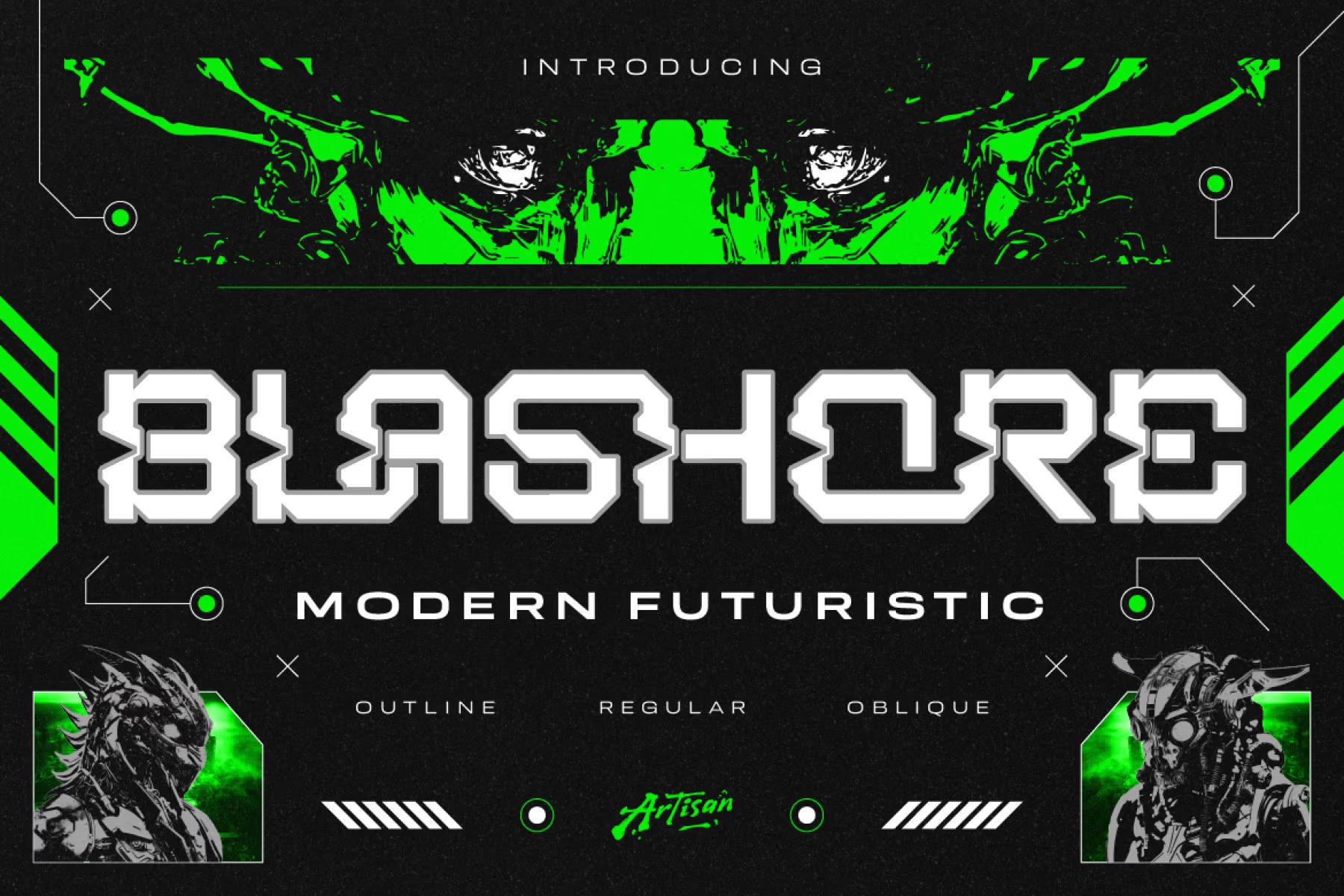
Blashore Font
Blashore Font is a clean and thoughtfully built typeface that works seamlessly for both professional branding and everyday creative uses. Blashore is a modern futuristic display font built for bold, high-energy visuals. It features sharp angles, solid structure, and a strong tech vibe that instantly feels powerful and aggressive. Perfect for gaming UI, esports branding, cyberpunk posters, sci-fi designs, tech logos, futuristic headlines, and anything that needs a strong digital impact. Blashore comes with Regular, Outline, and Oblique styles, giving you flexibility to play with depth, motion, and contrast in your designs.